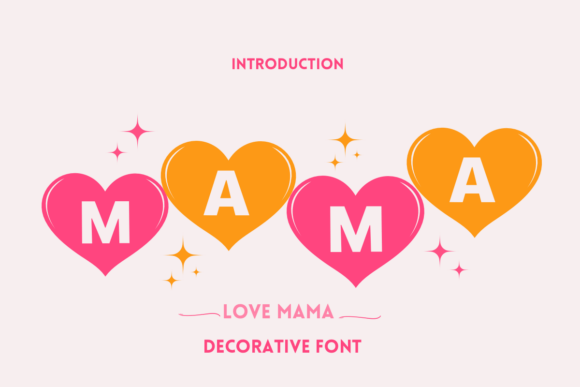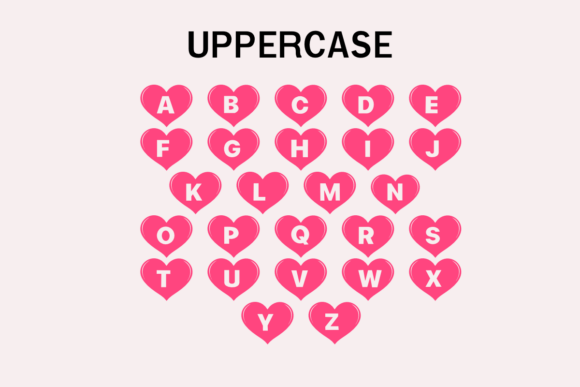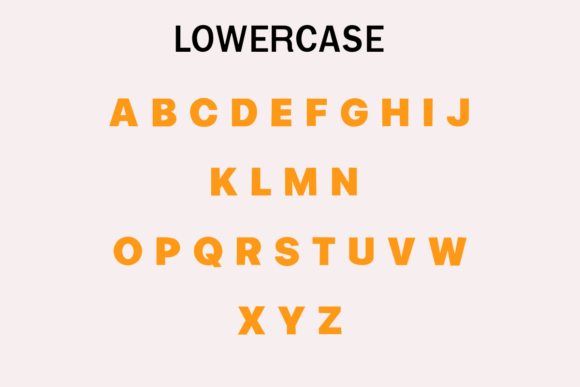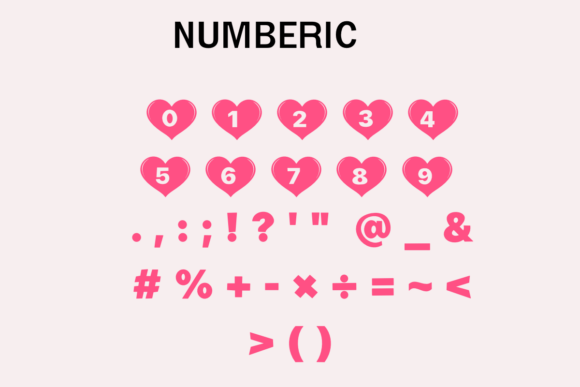
Love Mama Font: A Cute Decorative Font for Cricut & DIY Projects
About the Love Mama Font
Get ready to be inspired by Love Mama Font, a fresh and dynamic typeface for modern creators. Love Mama is a decorative font. You can use it for taking notes, writing a diary, or making greeting cards. However, you can still use it for other designs, such as banners, content, mugs, cards, shirts, stationery, social media posts, and more!
Love Mama’s decorative style shines in headlines, short text blocks on social media, and eye-catching branding elements for products targeting a younger, feminine demographic. It works exceptionally well for packaging and stationery projects where a handmade, slightly whimsical feel is desired. Avoid using it for body copy or lengthy text; its decorative nature reduces readability in large quantities.
Its playful personality pairs well with clean sans-serif fonts like Open Sans for body text, creating a balance of formality and charm. Alternatively, a more modern, geometric sans-serif such as Montserrat could complement its organic forms, providing a sophisticated contrast. For a more vintage feel, consider pairing it with a classic serif like Garamond.
Love Mama’s core personality is undeniably friendly and approachable, leaning toward a slightly nostalgic, handcrafted aesthetic. This makes it ideal for brands emphasizing warmth and personal connection, rather than corporate seriousness or high-end luxury.
Love Mama Font Usage Examples
Love Mama Font Example